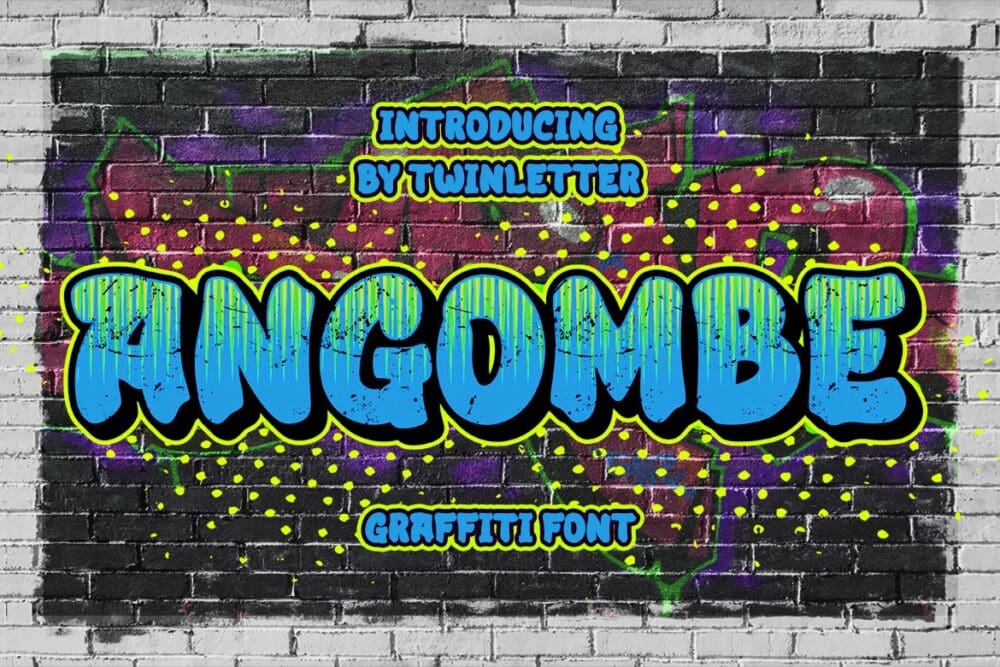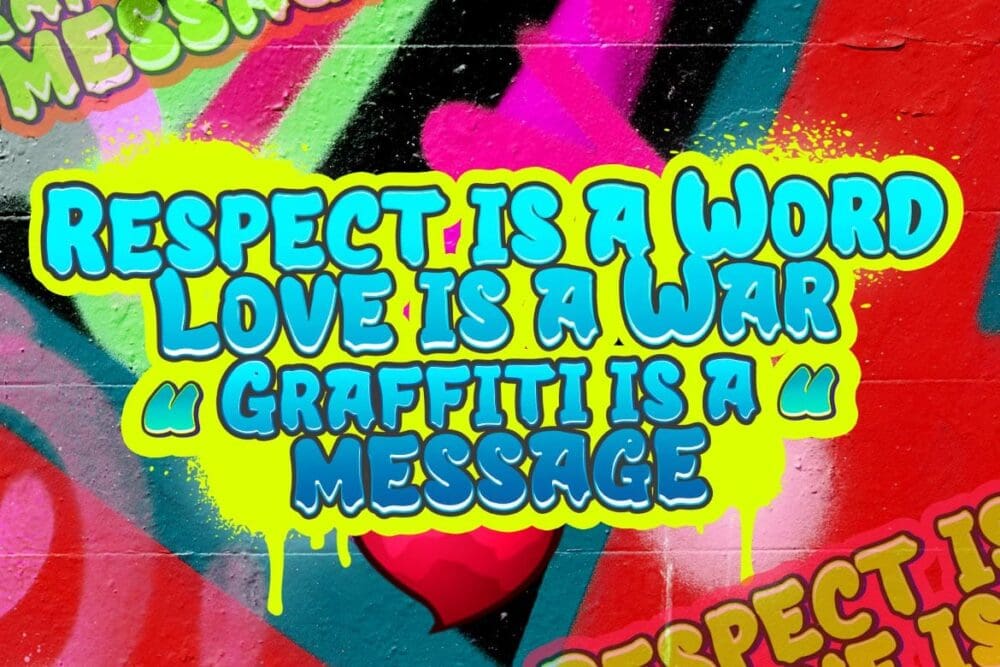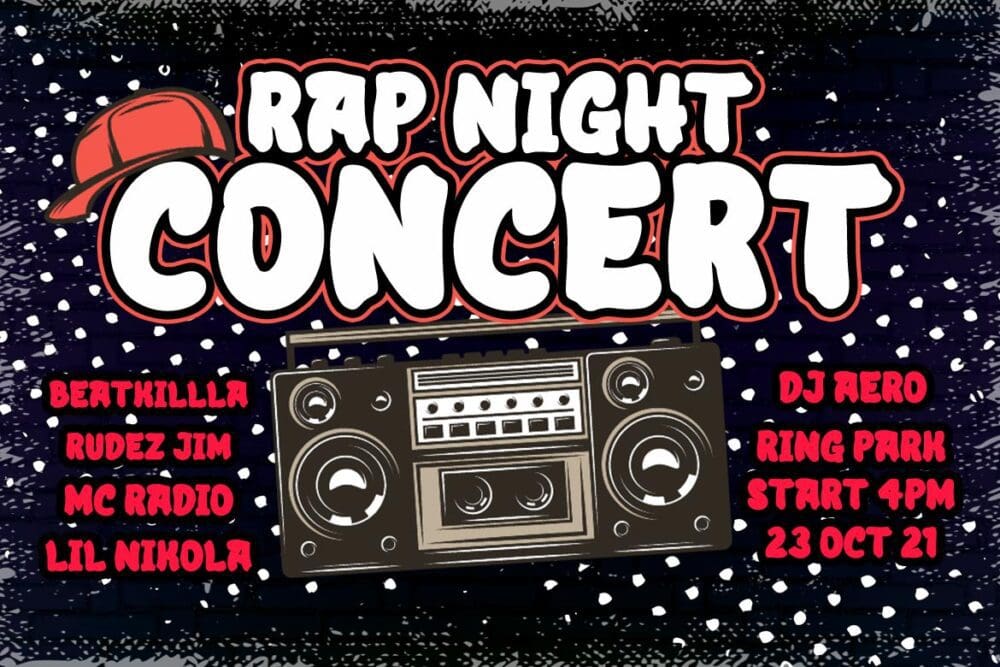
Angombe Font
Angombe is a graffiti font that we created by stressing harmony in each letter to create a decent and unique combination of phrases. When you apply this typeface, your project will look to be more appealing, high-quality, classy, and exquisite. Assume that everyone who views your project is astonished and enthralled and that your objectives are readily met.